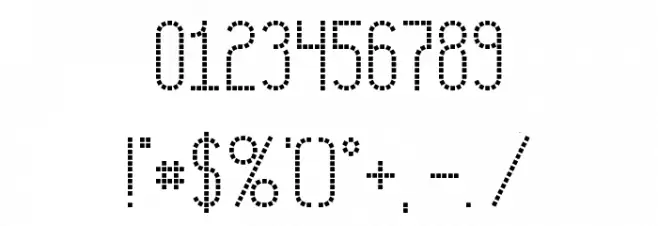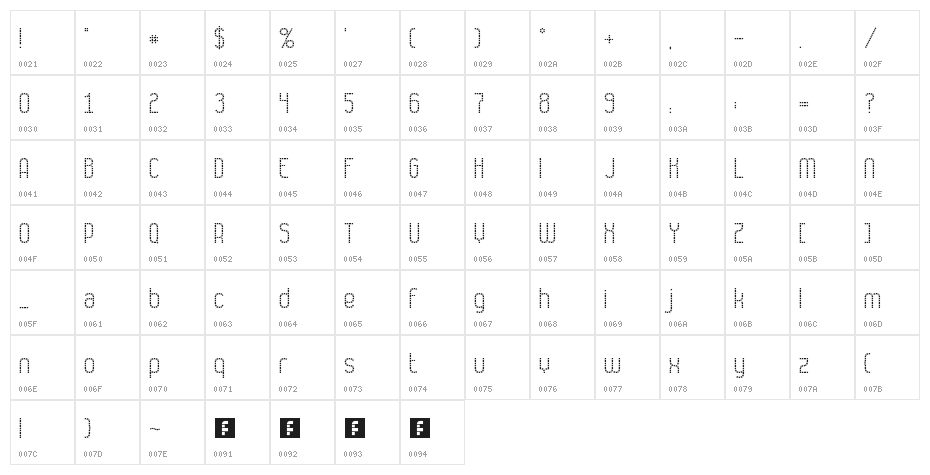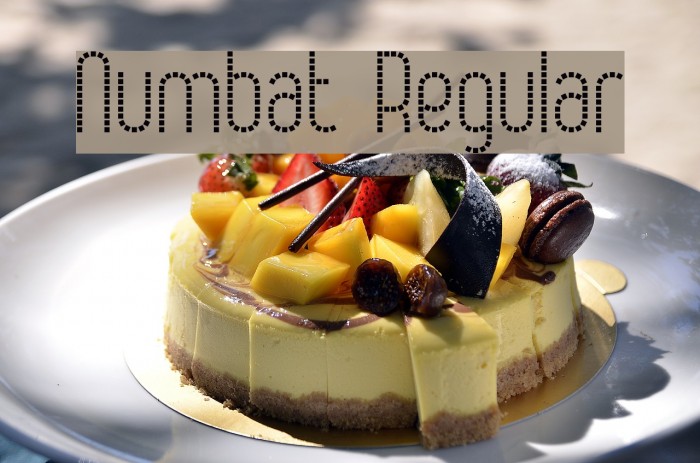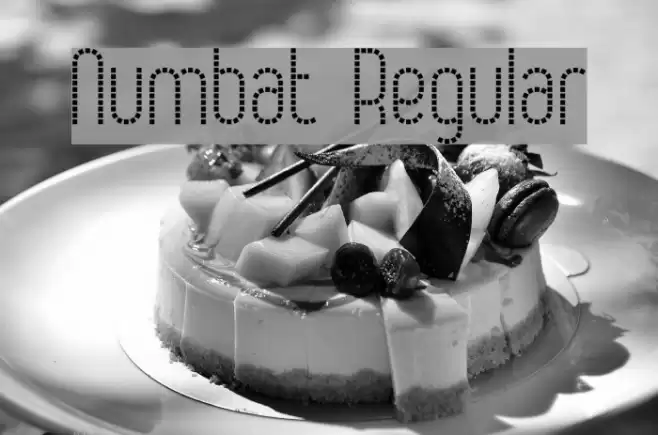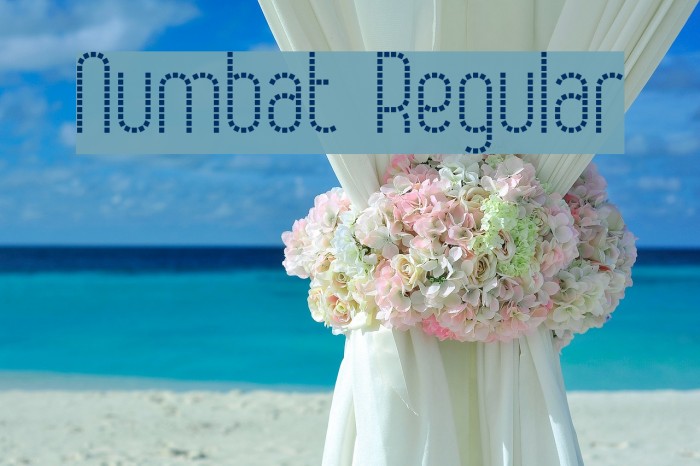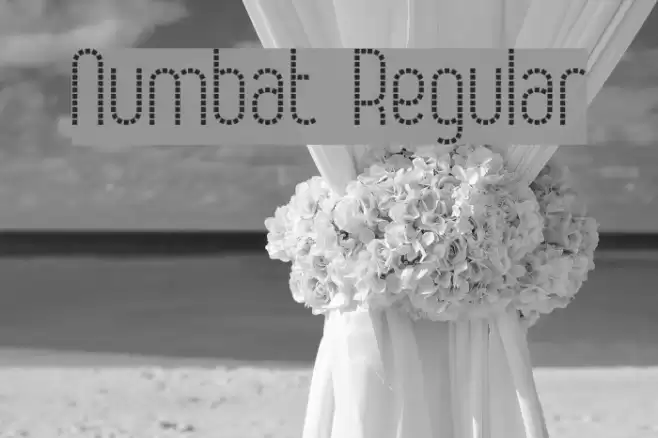
Numbat Regular Font
Numbat Regular Description
This font features a unique dotted design, where each character is composed of small, evenly spaced dots. The style is geometric and modern, with a consistent pattern that gives it a digital or pixelated appearance. The uppercase and lowercase letters maintain a uniform height, contributing to a cohesive look. Numbers and special characters follow the same dotted pattern, ensuring visual consistency across all elements. The overall aesthetic is clean and minimalistic, making it suitable for projects that require a contemporary and tech-savvy feel.
| Use Case | Headlines, Logos, Digital displays |
| Proposed Projects | Ideal for digital displays, tech-themed designs, modern art projects, and innovative branding. |